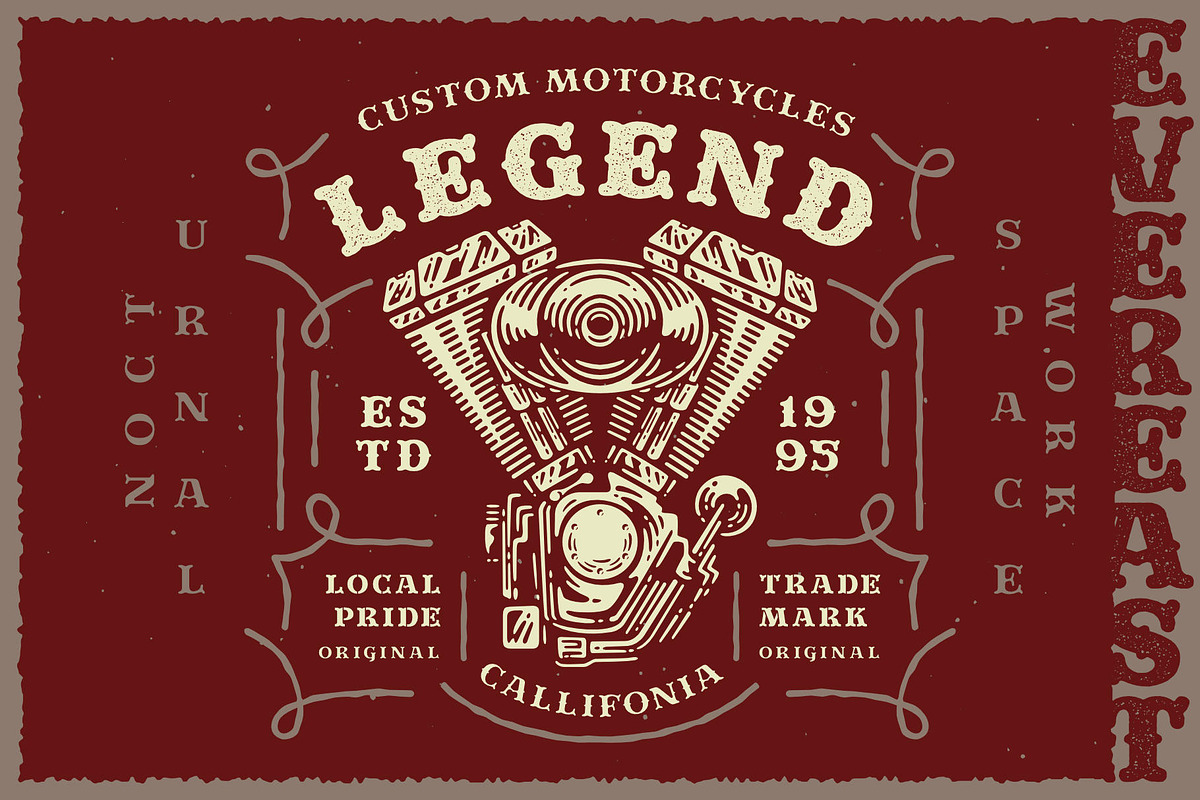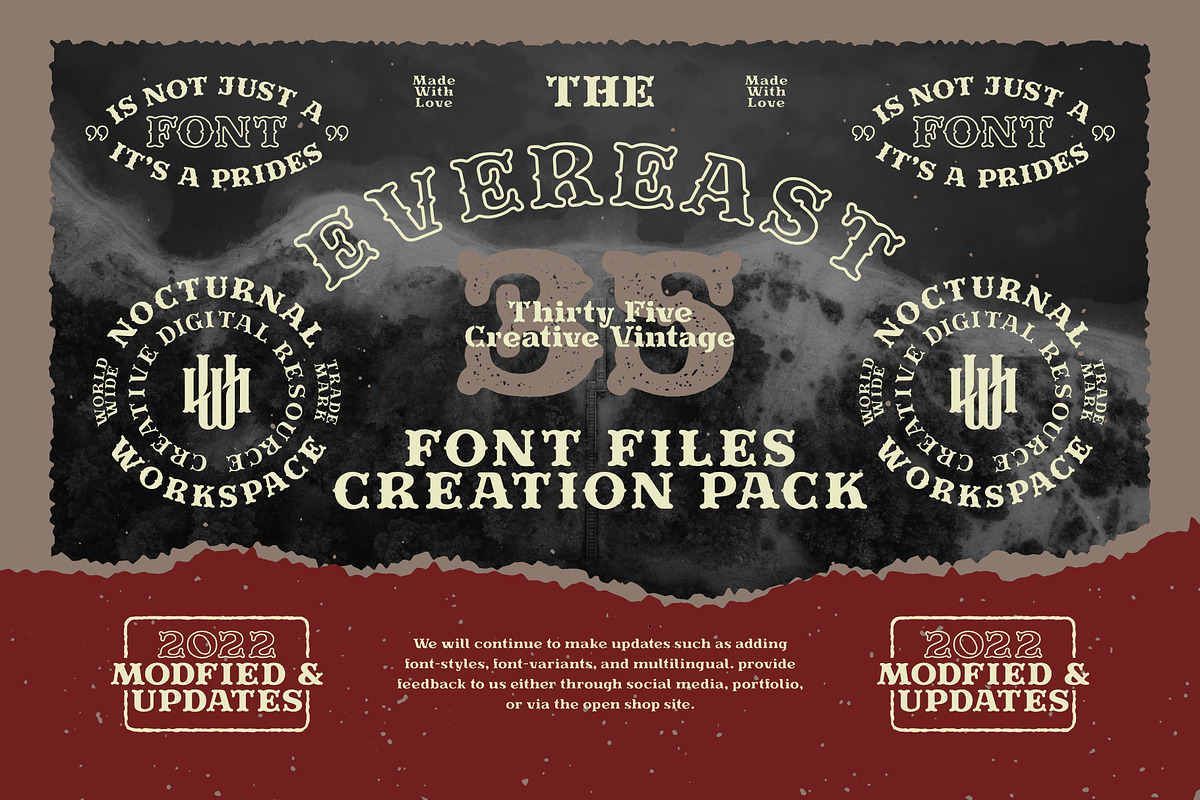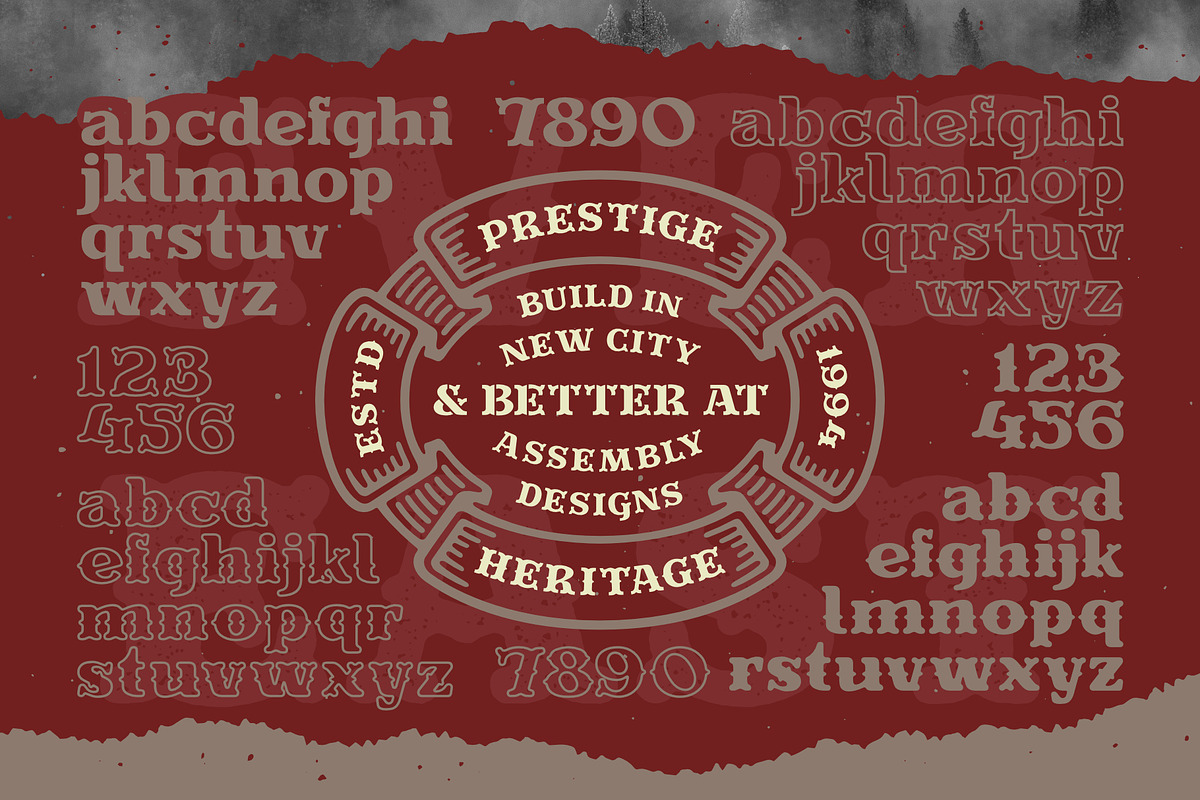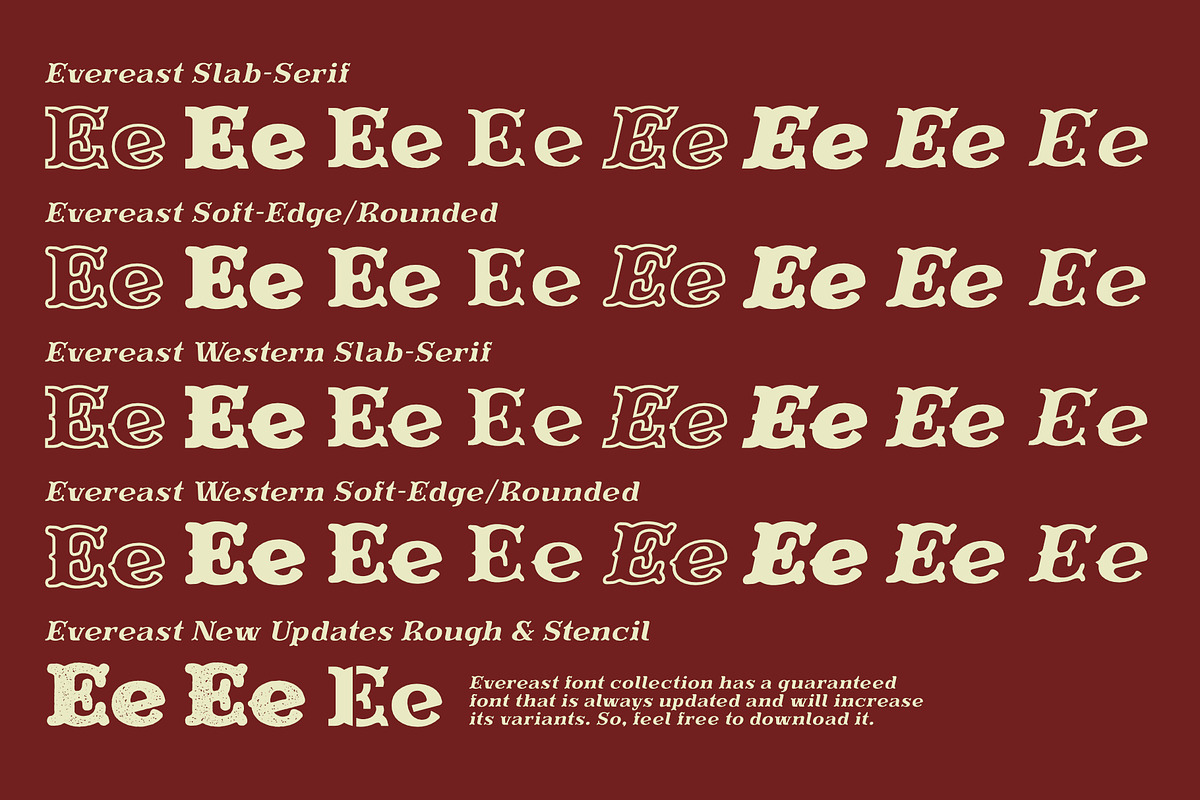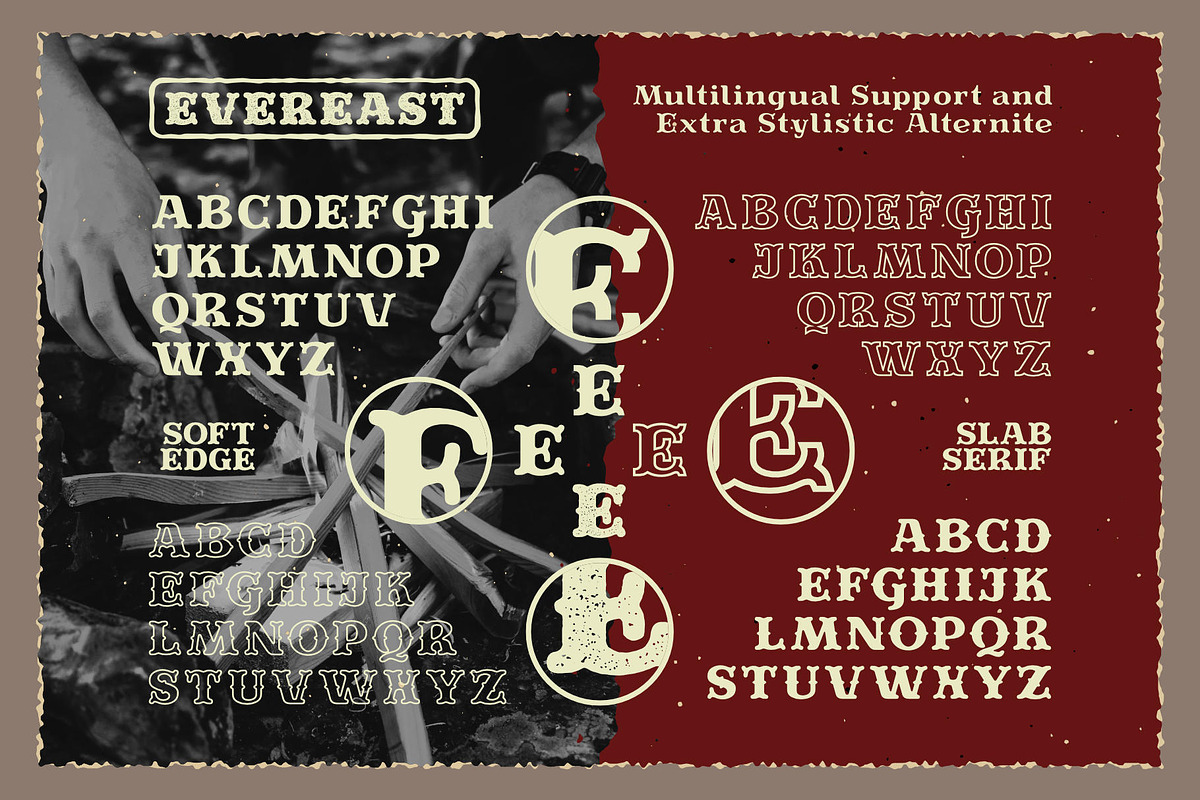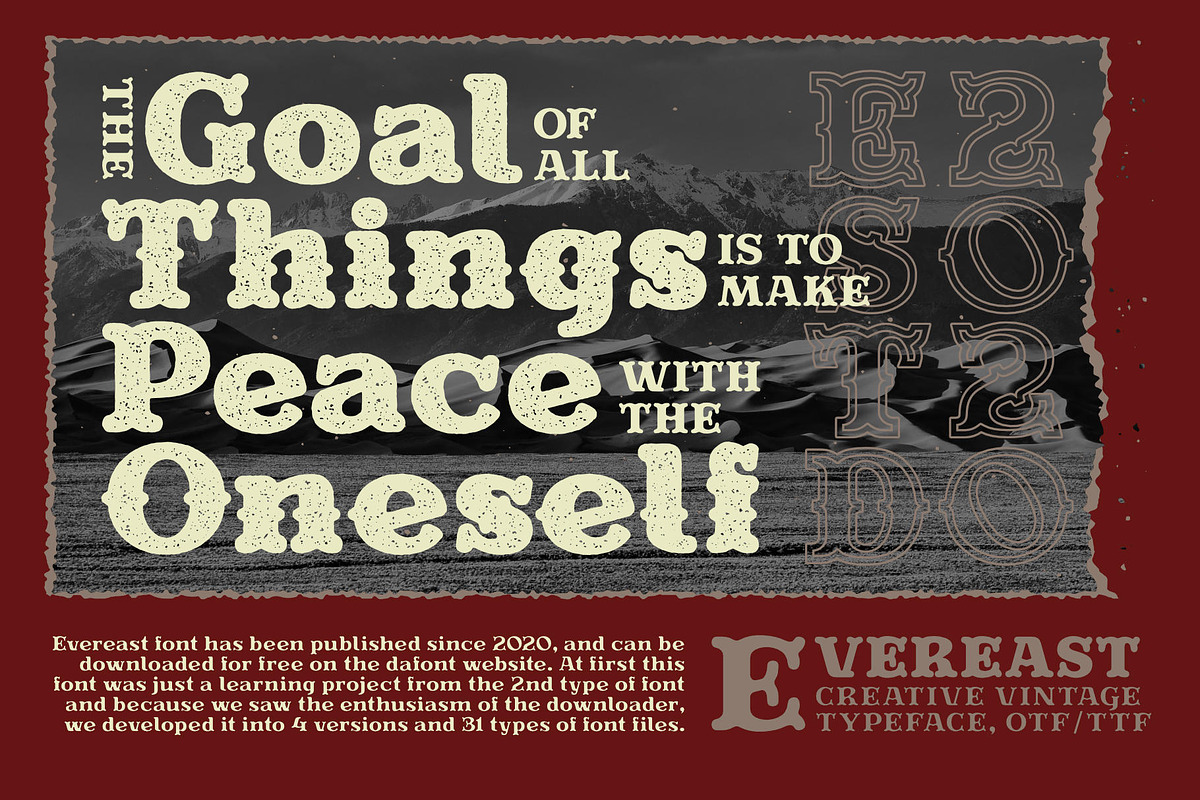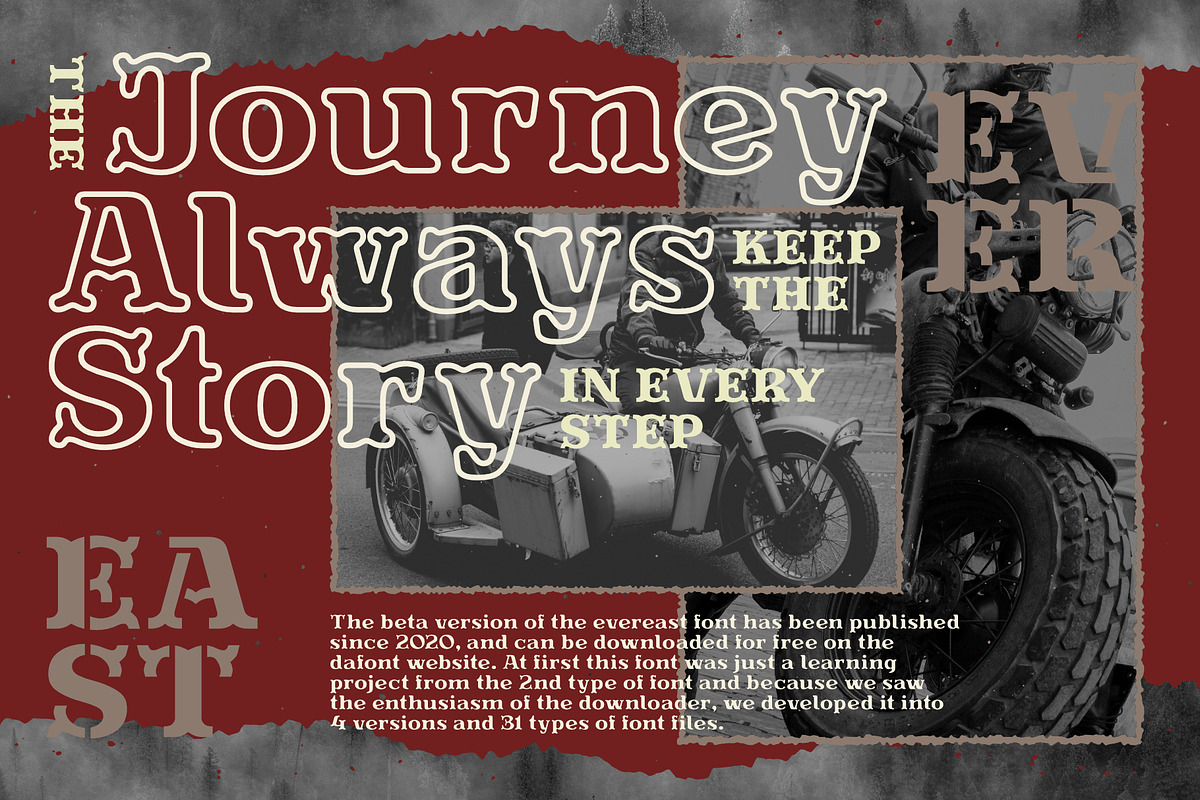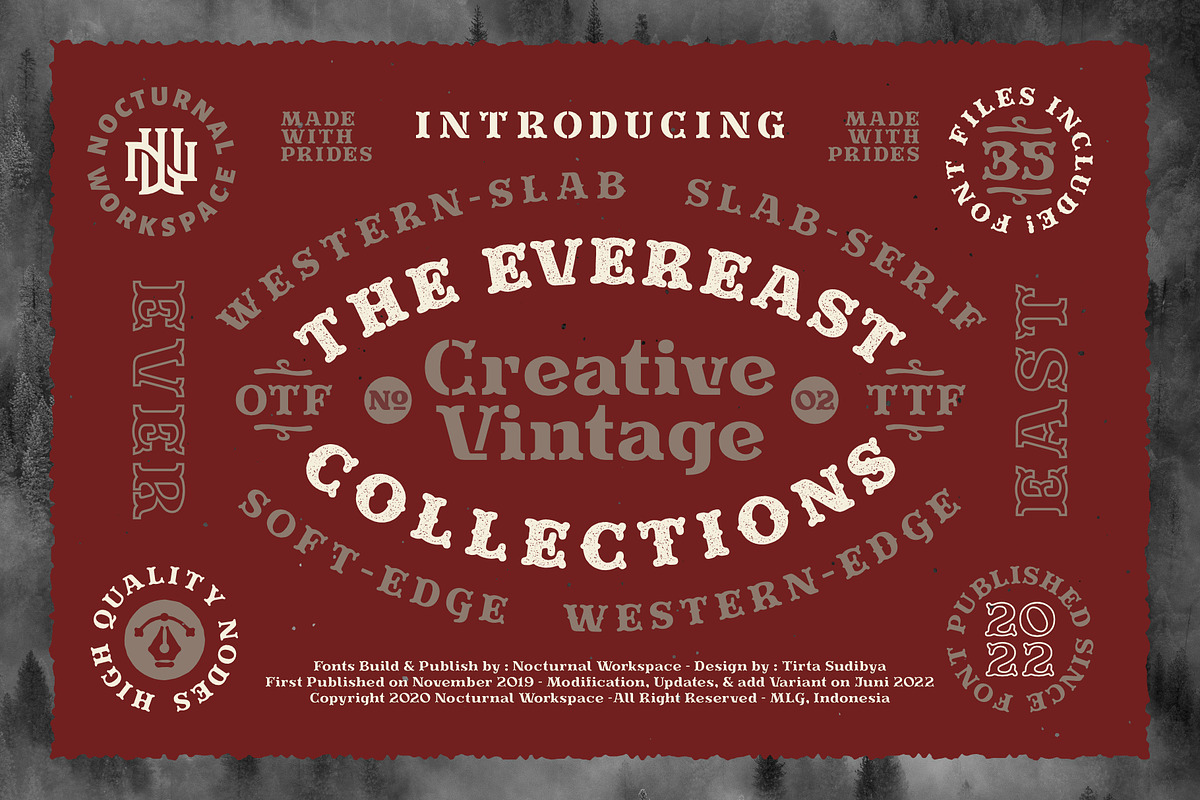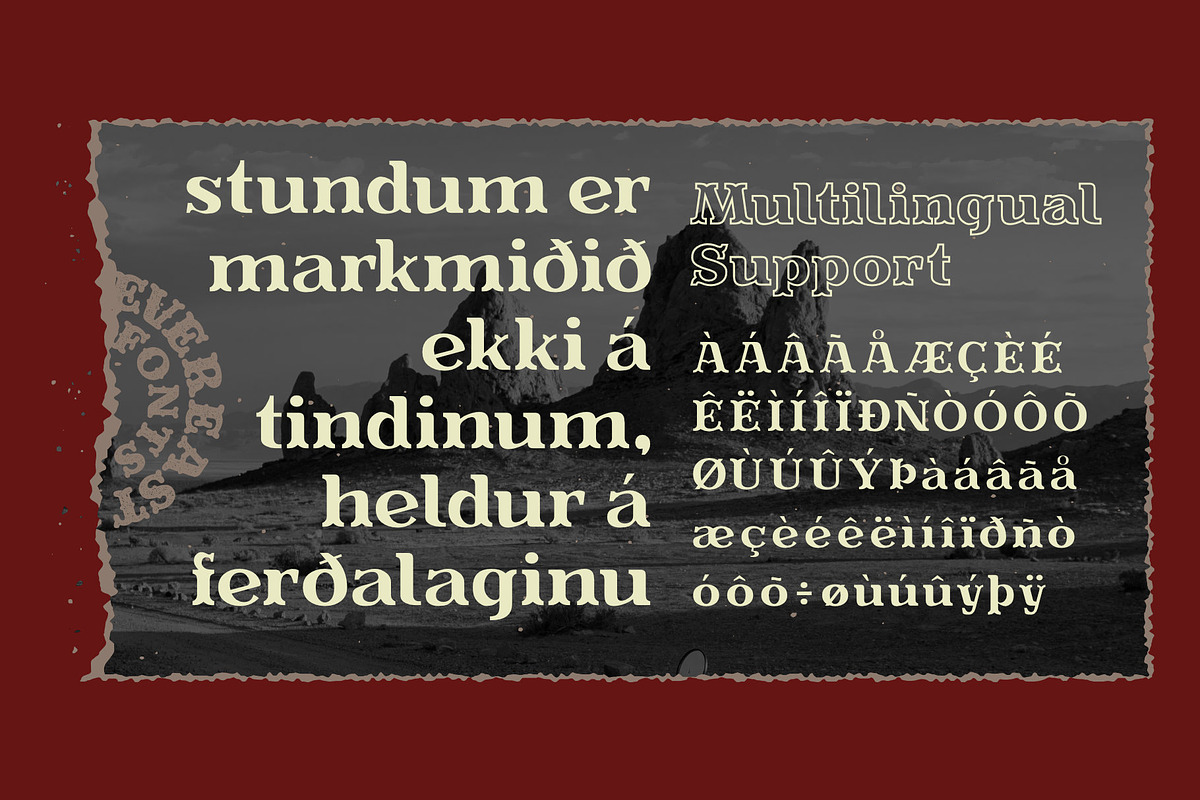
Evereast Font Family
The beta version of the evereast font has been published since 2020, and can be downloaded for free on the dafont website. At first this font was just a learning project from the 2nd type of font and because we saw the enthusiasm of the downloader, we developed it
- Evereast Rough & Stencil (NEW UPDATES)
- 35 fonts. Outline, Bold, Regular, Light, Italic, Rough, Stencil
- Includes a range of multilingual characters.
Evereast is suitable typeface for various purposes like logotype, signage, label, poster, dropcap, titles, letterhead, book cover and etc.